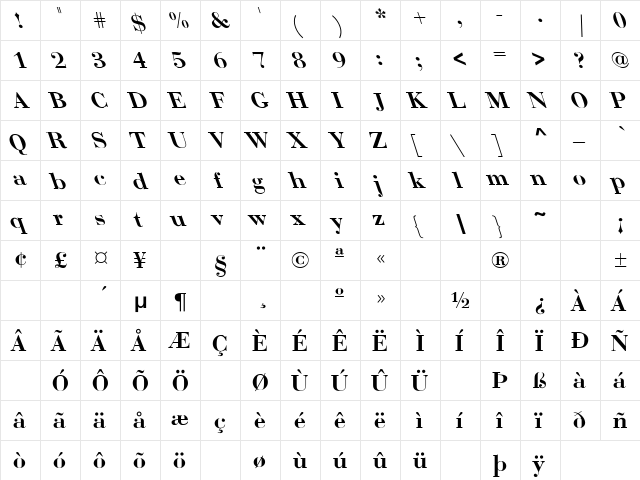
Bodoni-Bold Lefty Regular
Design Context for Bodoni-Bold Lefty Typeface
Bodoni-Bold Lefty offers clean, dependable letterforms without strong stylistic allegiance, making it a practical choice for designers who need flexibility. The heavy weight commands attention and anchors typographic hierarchies.